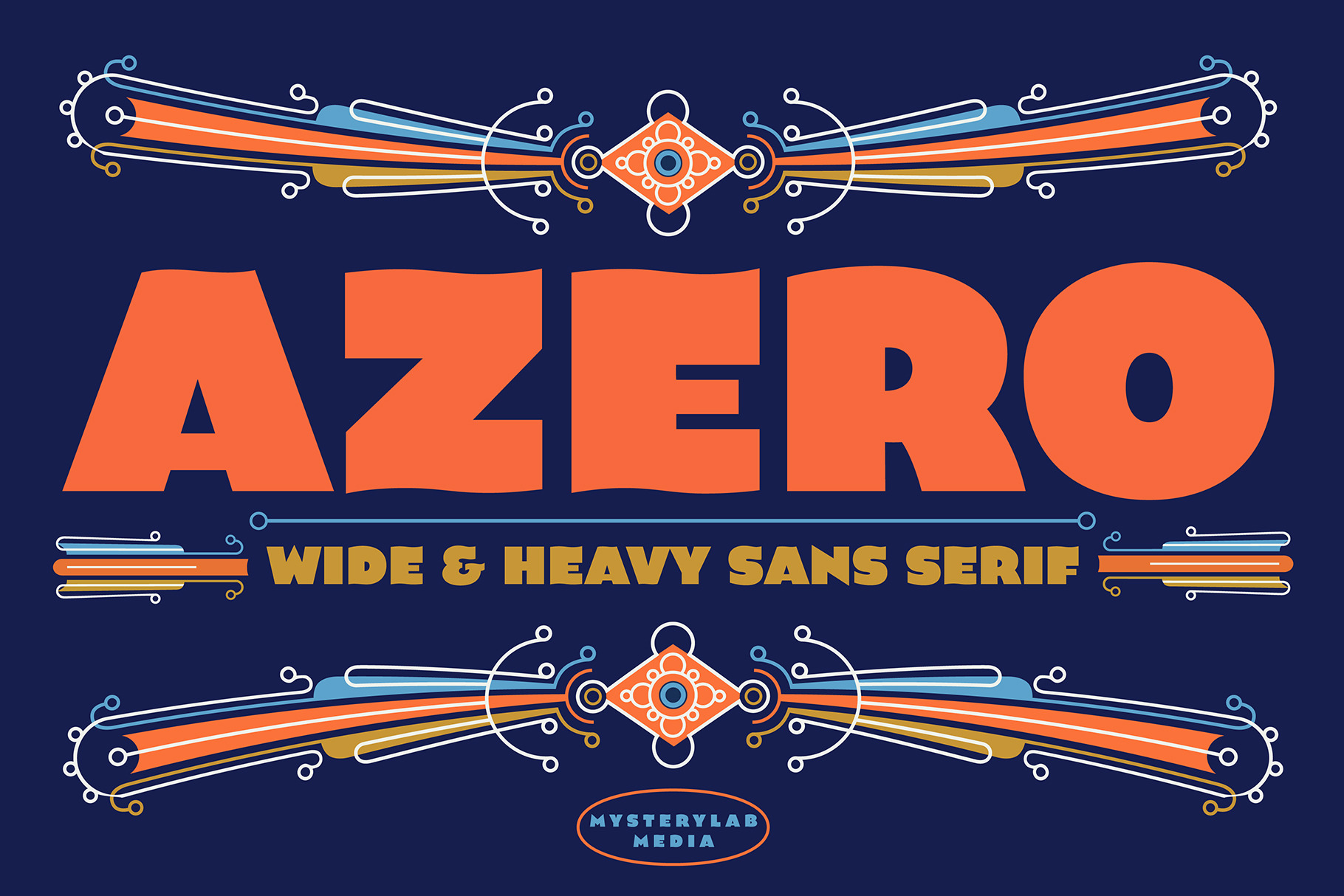
Azero Font Family
Azero is a extra heavy sans serif font with four style variations. The uppercase alphabet in particular is stylized to feature a wavy baseline on many of the characters, for a unique look that's just enough to add some unusual vibe and uniqueness. When your layout calls for heavy type with a wide (but not too wide) look, Azero is a strong choice. Great for bold headlines, logos, branding, wide horizontal banners, themes with a Hispanic flair, fitness products, food packaging, or retro poster styles.